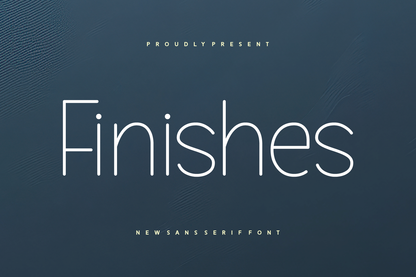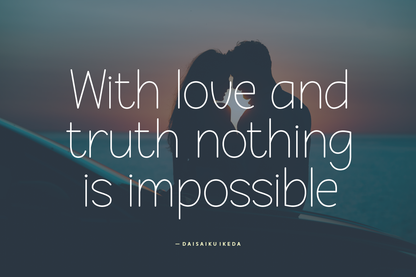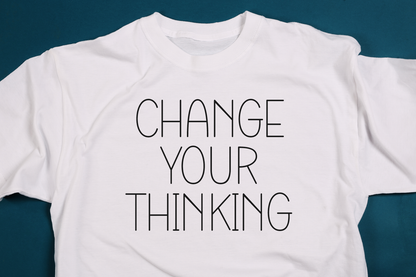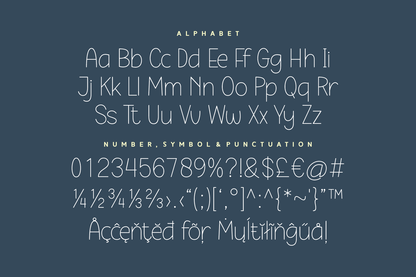
Finishes is a delicate and futuristic sans-serif font with ultra-clean curves and airy rhythm. Perfect for wellness brands, digital products, beauty packaging, or minimalist web design, it evokes a sense of calm, precision, and modern luxury.